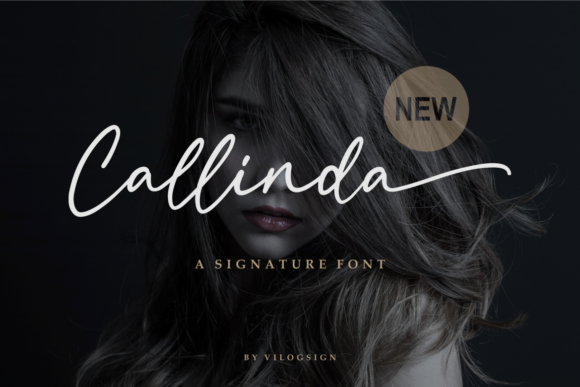
Introducing Callinda Font: The Epitome of Elegance and Sophistication
In the world of typography, fonts play a crucial role in conveying the tone and personality of a brand or design project. Among the numerous fonts available, Callinda Font stands out for its exceptional elegance and classy appeal. This beautiful script font has been carefully crafted to add a touch of sophistication to any project, making it an ideal choice for designers and brands seeking to make a lasting impression.
The Design Philosophy Behind Callinda Font
Callinda Font is the brainchild of a meticulous design process aimed at creating a typeface that embodies balance, elegance, and versatility. The designer sought to create a font that would not lean too heavily towards being too thin or too thick, thereby ensuring it remains legible and aesthetically pleasing across various applications. The result is a script font that exudes a delicate yet robust presence, making it suitable for a wide range of design projects.
Key Features of Callinda Font
- Elegant and Classy Look: Callinda Font boasts an elegant and classy appearance that can instantly elevate the visual appeal of any design project.
- Balanced and Varied: The font features a balanced design with varied strokes, ensuring it remains engaging and easy to read.
- Versatility: Callinda Font is versatile and can be used in various design projects, including branding, advertising, packaging, and more.
- Legibility: Despite its elegant and delicate appearance, Callinda Font maintains high legibility, making it suitable for both headings and body text.
Applications of Callinda Font
The versatility of Callinda Font makes it an excellent choice for a myriad of design applications. Here are some of the areas where Callinda Font truly shines:
1. Branding and Logo Design
For brands aiming to convey elegance, sophistication, and class, Callinda Font can be a perfect fit. Its unique and memorable appearance can help brands stand out in a crowded marketplace.
2. Advertising and Marketing Materials
In advertising and marketing, grabbing the audience’s attention is paramount. Callinda Font, with its elegant and classy look, can add a touch of luxury and exclusivity to any promotional material.
3. Packaging Design
Packaging design is an essential aspect of product presentation. Callinda Font can be used to create eye-catching and sophisticated packaging that reflects the brand’s personality and appeals to the target audience.
4. Website Design
In the digital realm, typography plays a crucial role in user experience. Callinda Font can be used in website design to create visually appealing headings, titles, and even body text that engages visitors and enhances the overall user experience.
Why Choose Callinda Font?
With numerous fonts available, why should designers and brands opt for Callinda Font? Here are some compelling reasons:
1. Uniqueness
Callinda Font offers a unique blend of elegance and classiness that sets it apart from more common typefaces.
2. Versatility
Its versatility ensures it can be used across various design projects and applications.
3. Legibility
Despite its delicate appearance, Callinda Font maintains excellent legibility, making it suitable for both digital and print designs.
4. Aesthetic Appeal
The font’s aesthetic appeal can instantly elevate the visual appeal of any design project, making it more engaging and memorable.
Callinda Font is a remarkable addition to the world of typography, offering an elegant and classy script font that can enhance the beauty of any design project. Its balanced and varied design, coupled with its versatility and legibility, makes it an excellent choice for designers and brands aiming to make a lasting impression. Whether you’re working on branding, advertising, packaging, or website design, Callinda Font is sure to bring a touch of sophistication and elegance to your projects.
Embrace Elegance with Callinda Font
Incorporating Callinda Font into your design repertoire can open up new avenues for creativity and expression. Its unique blend of delicacy and robustness ensures that your designs will stand out in a crowded digital landscape. So, why settle for ordinary when you can embrace elegance with Callinda Font?